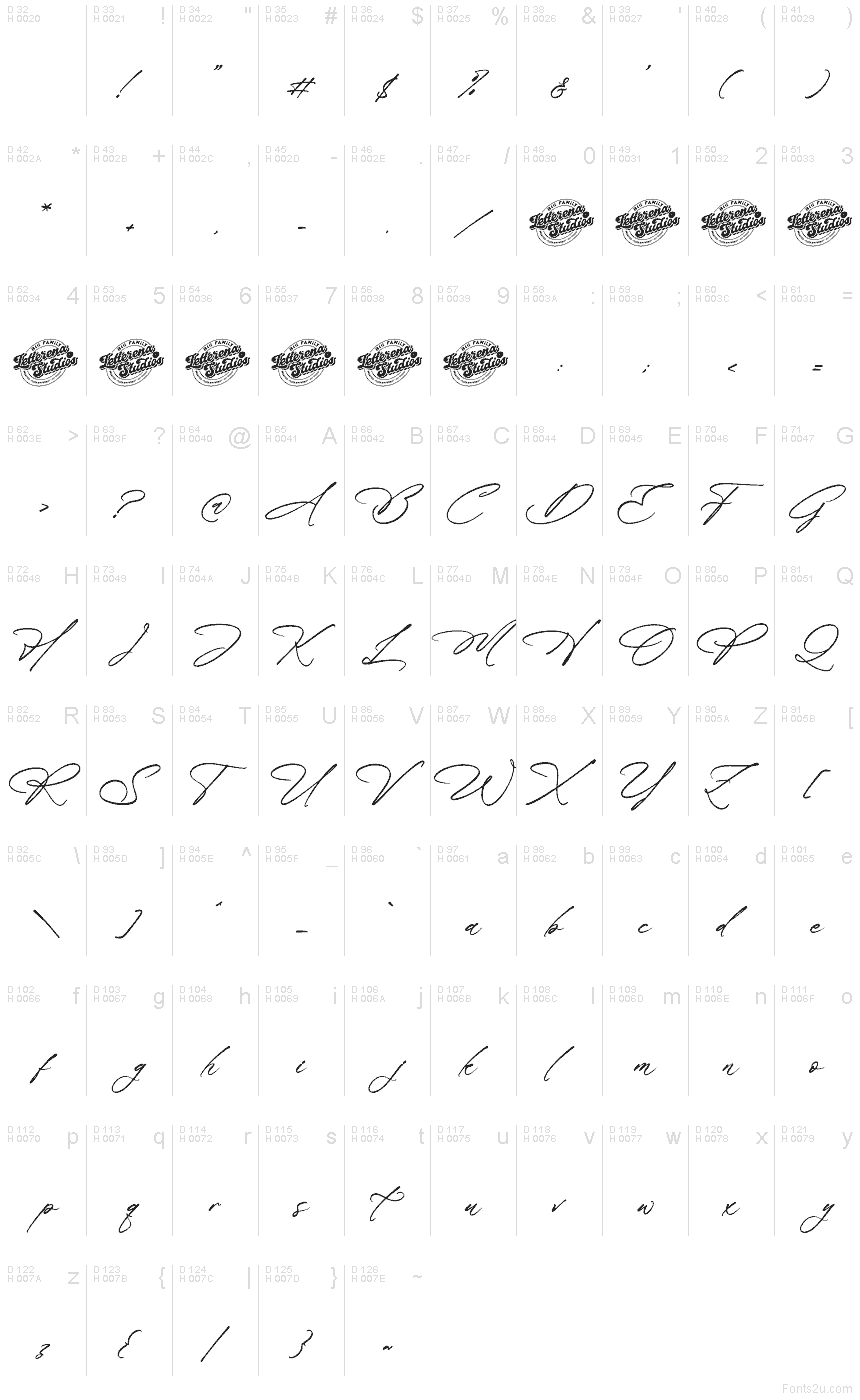
Blissfuly Magnotia DEMO VERSION Italic
Blissfuly Magnotia Italic font by Letterena Studios is a free handwritten signature font. Part of the Blissfuly Magnotia family, it glides with a graceful slant, long swooping flourishes, and a soft inky texture that feels freshly penned. The strokes are airy yet confident, giving names, headlines, and short phrases an upscale, keepsake quality without sacrificing readability.
Using Blissfuly Magnotia Italic, your layouts gain that “signed-by-hand” polish that shines on wedding invitations, boutique logos, beauty packaging, event signage, social posts, and certificate headings. Its flowing rhythm and generous spacing help single words or short lines carry the scene. Pair this free font with a clean, light sans for body copy, and let the script sit larger—around title size—to keep the swashes breathing.